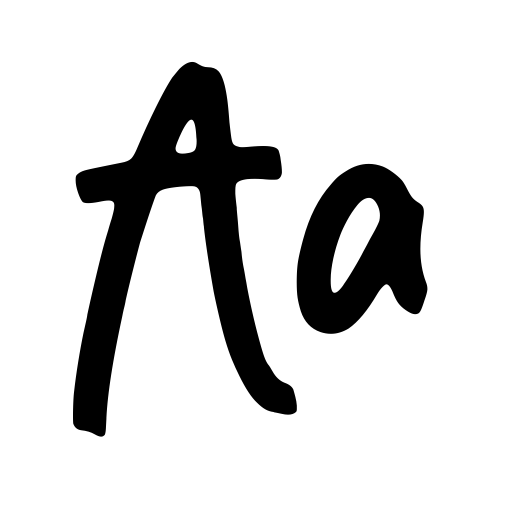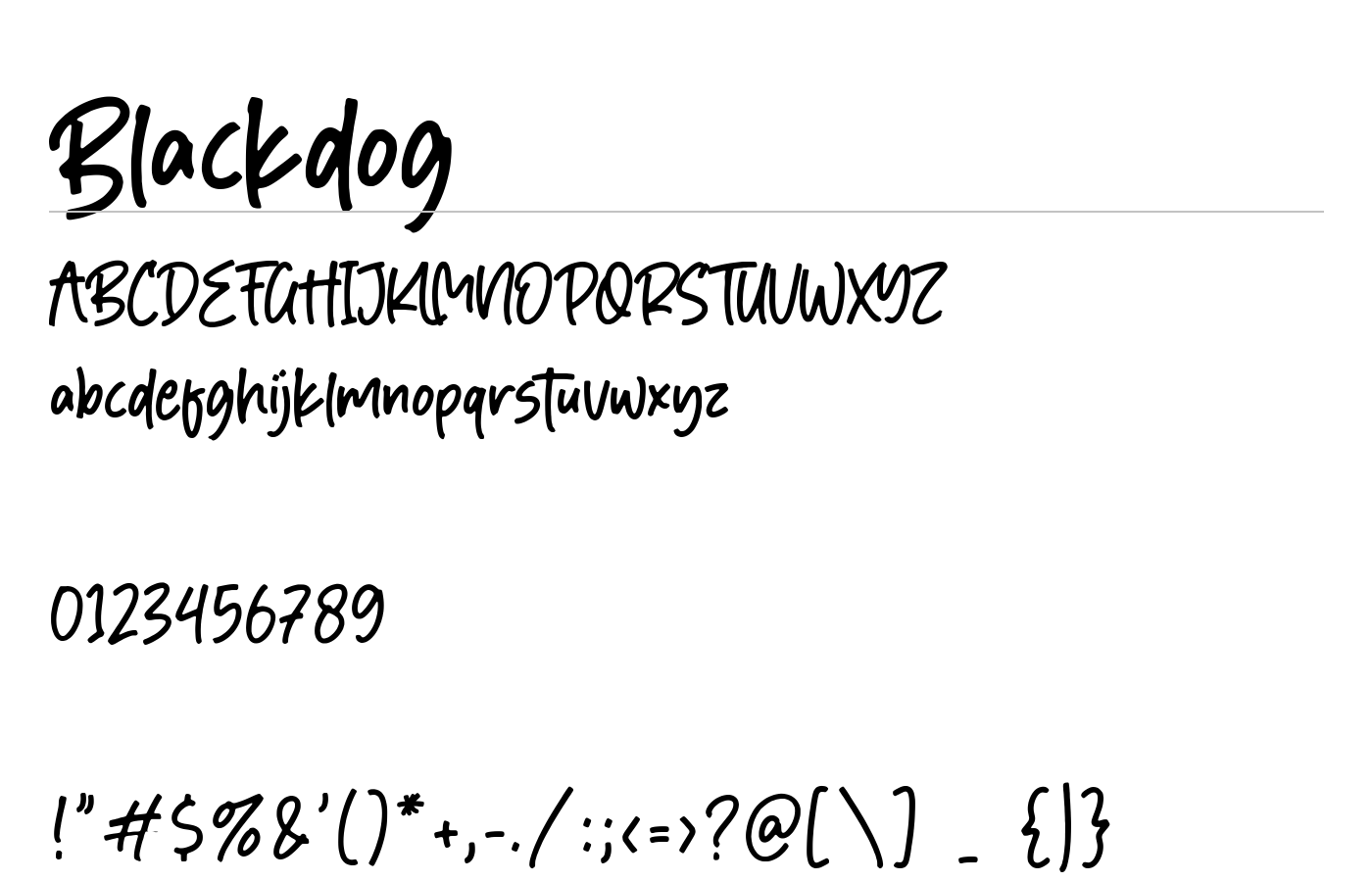
Blackdog is a lively and casual handwritten font that captures an energetic and approachable vibe with its slightly uneven, brush-like strokes and friendly letterforms. Its medium weight and tall x-height make it highly legible while maintaining a playful, informal charm, perfect for creative branding, social media, and personal projects that seek a warm, authentic touch. This font works well in headlines, logos, and eye-catching designs where personality and expression are key.
Blackdog Font
About Blackdog Font
| Font family | Blackdog Font |